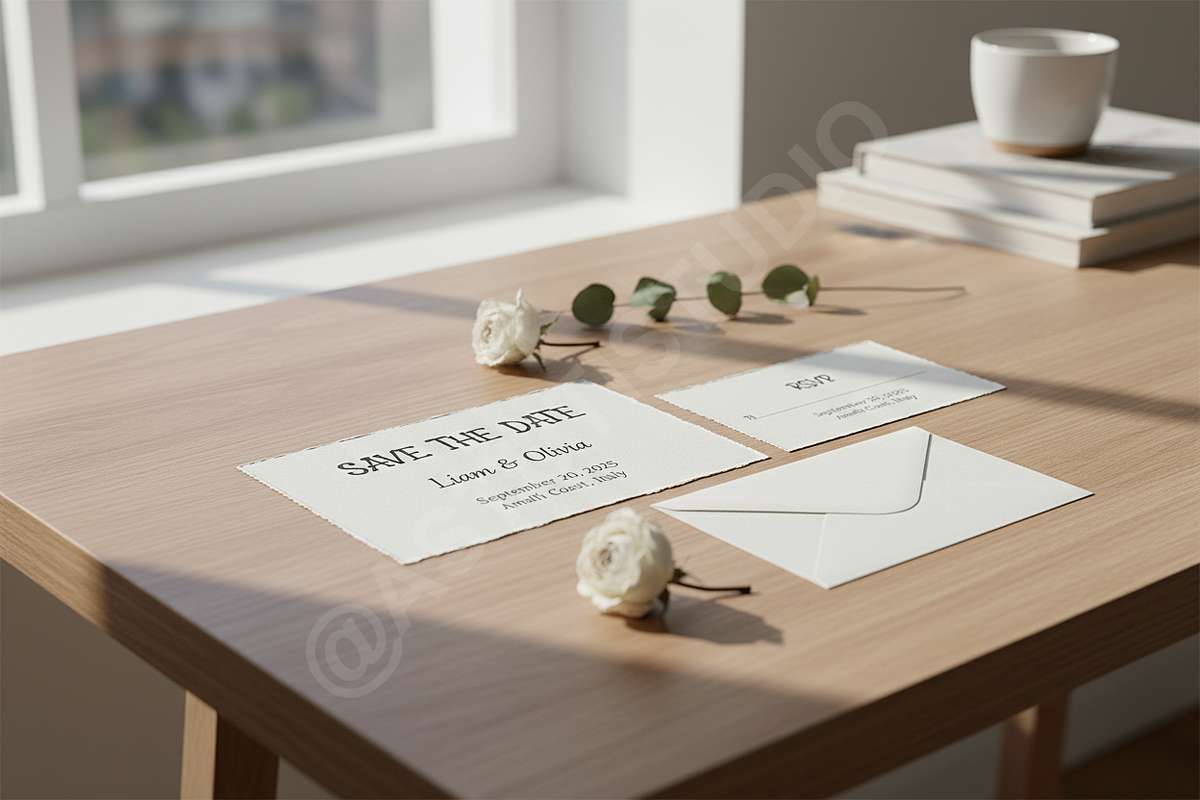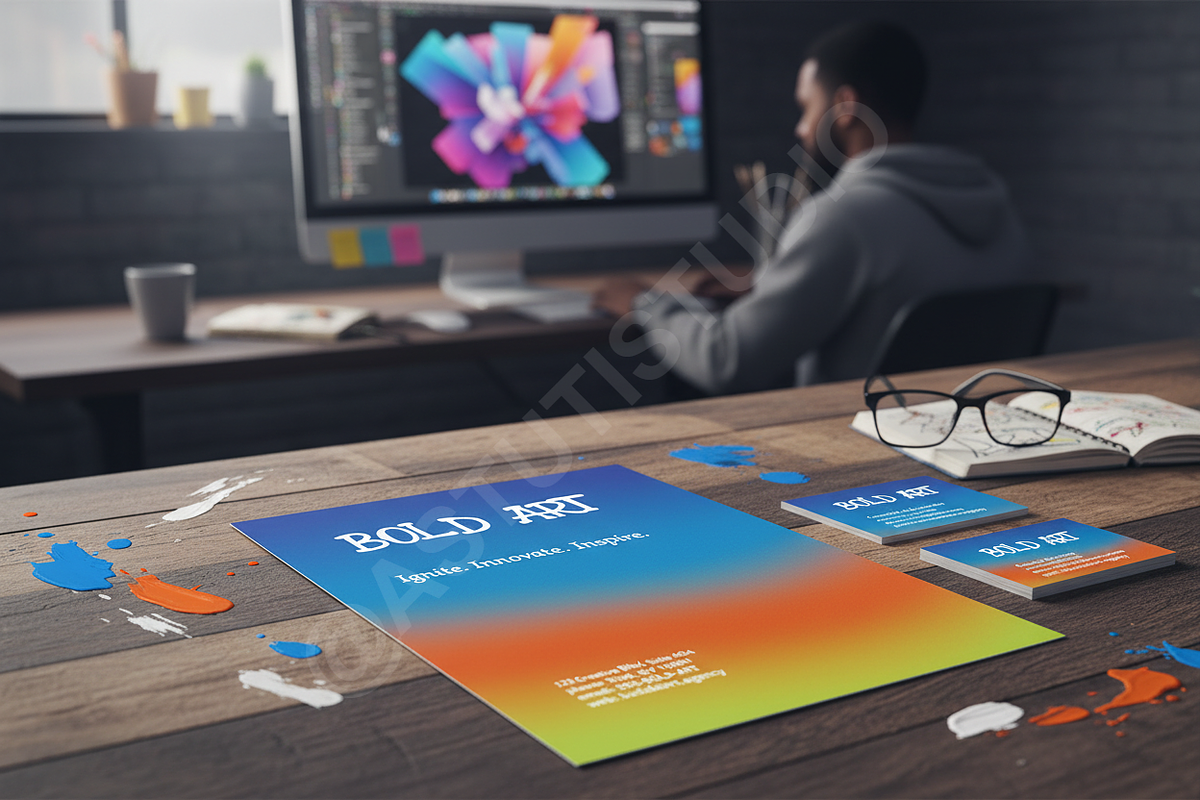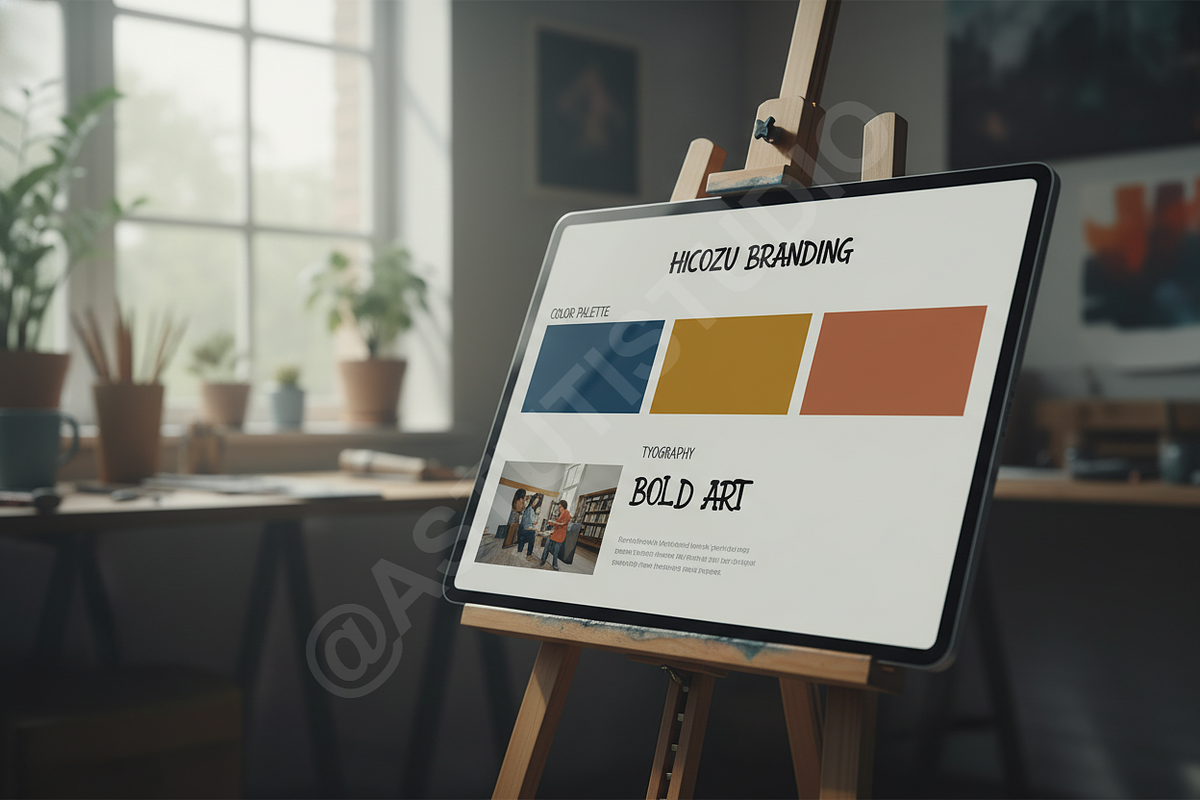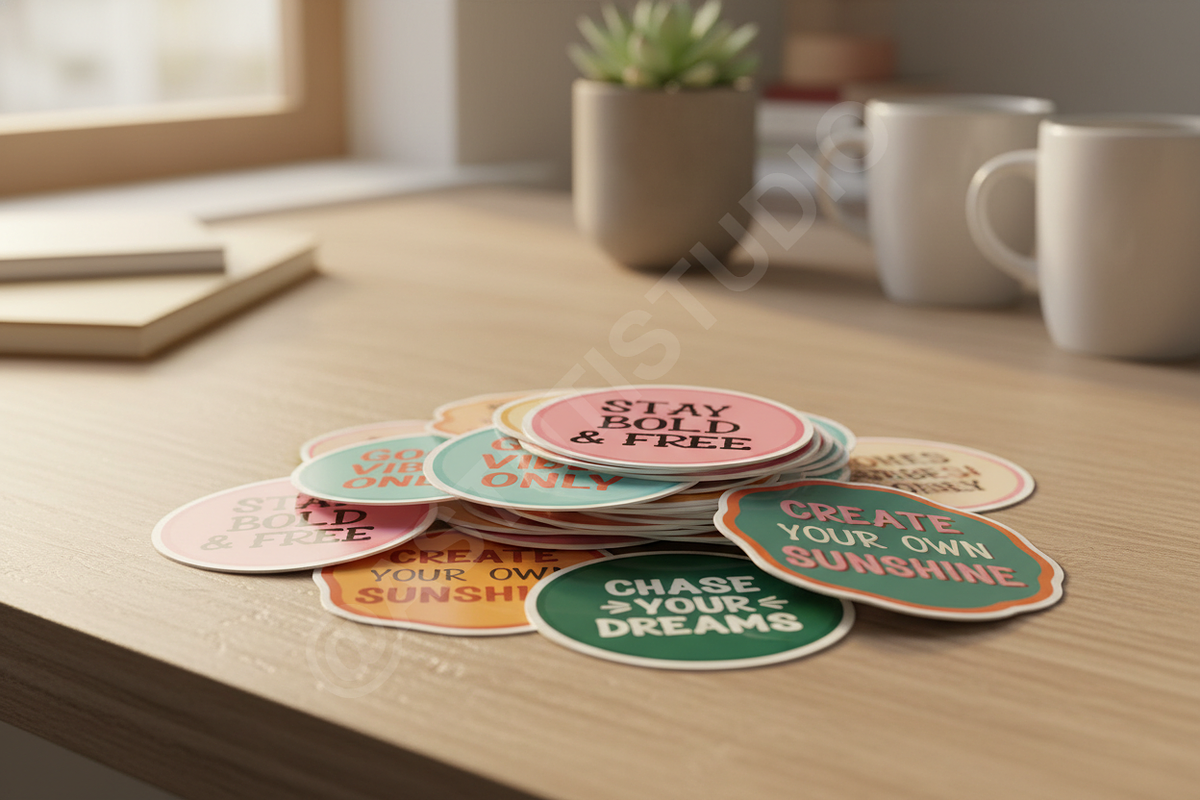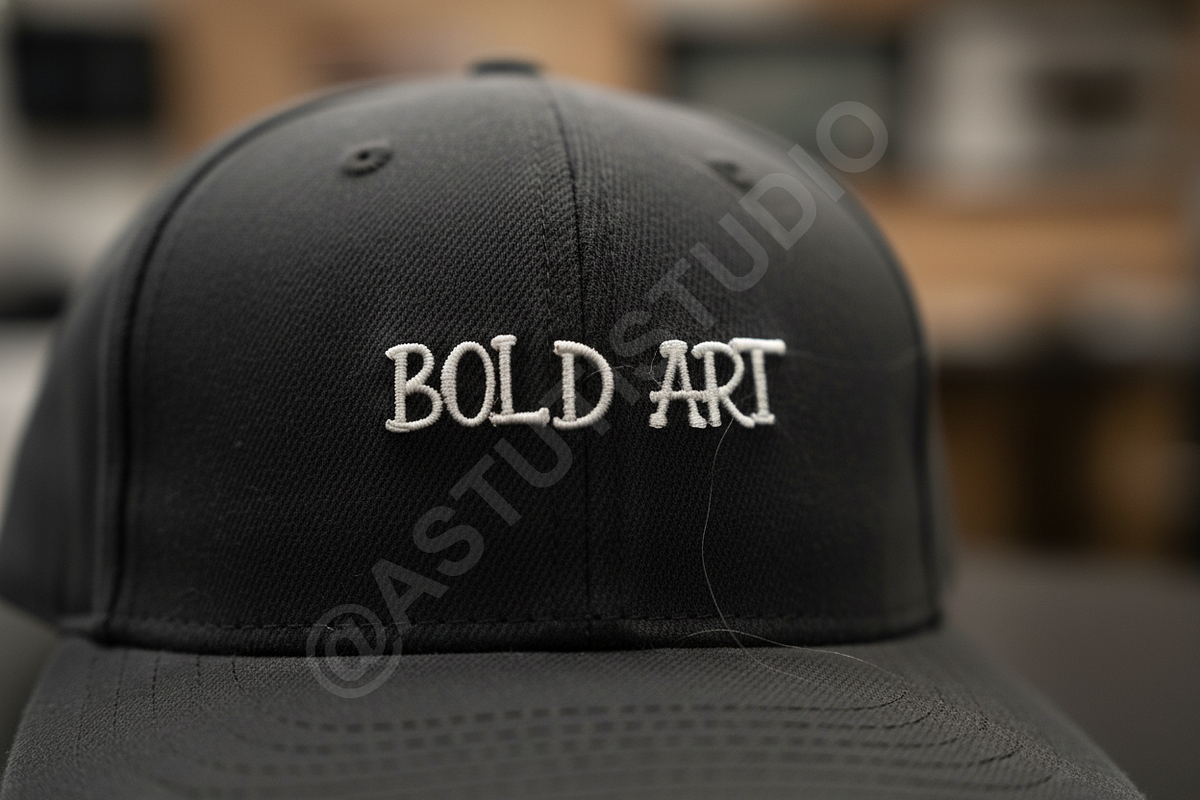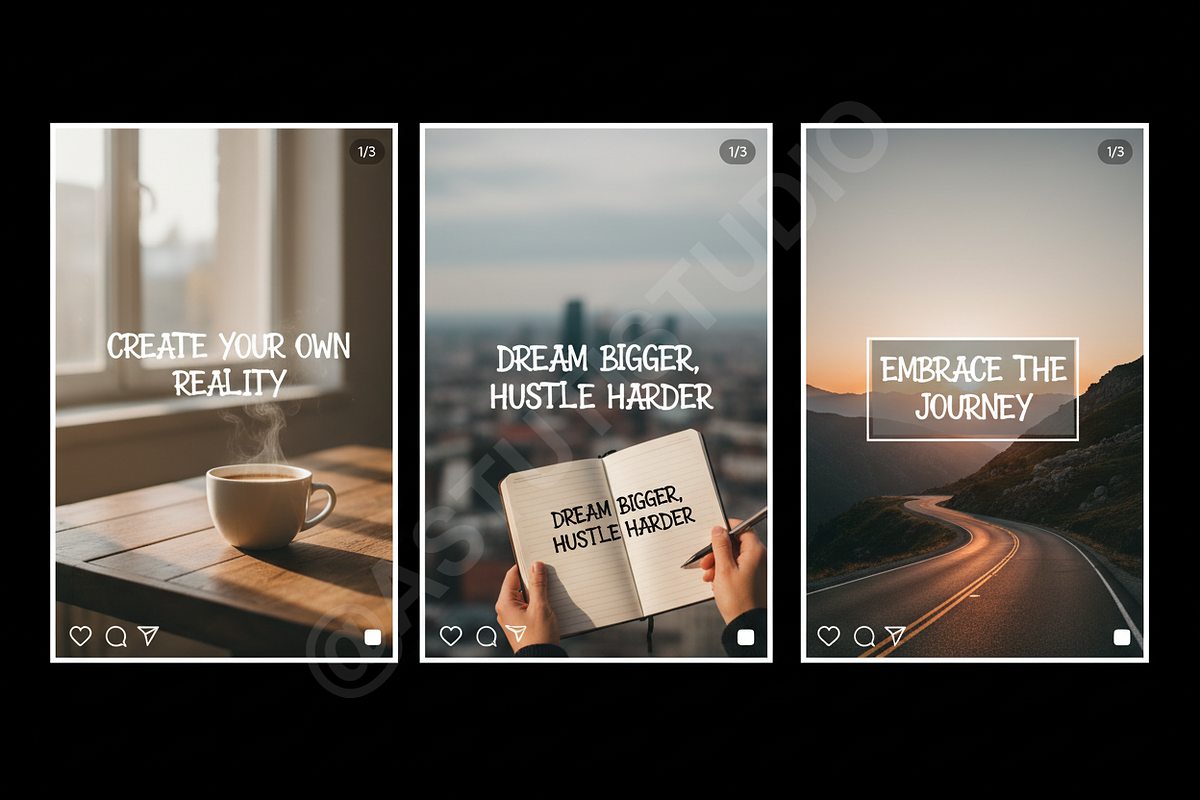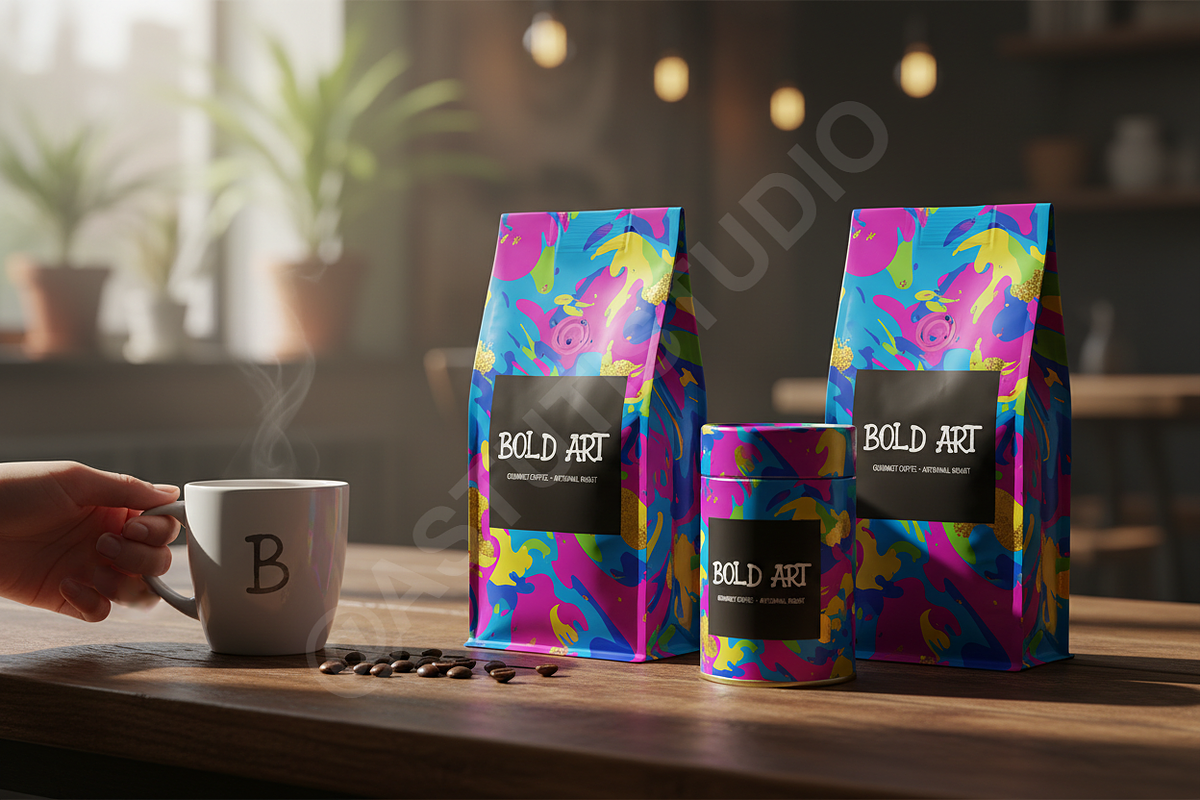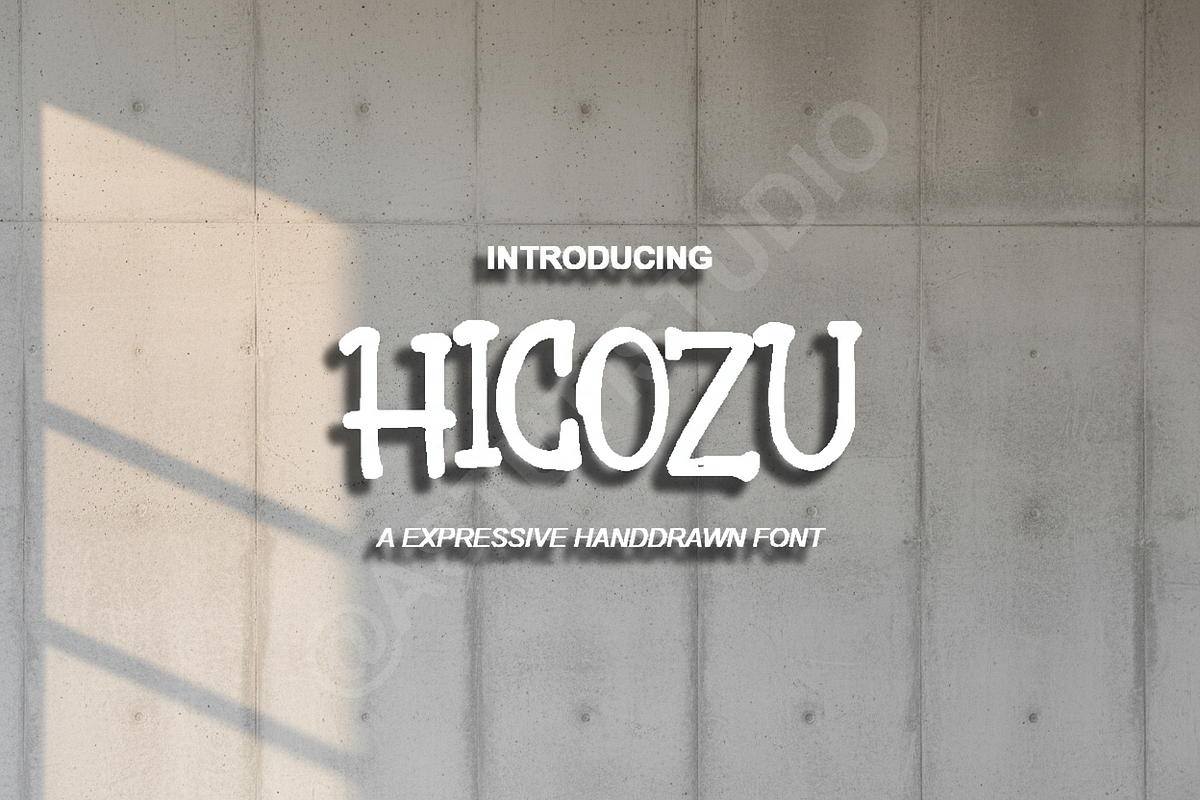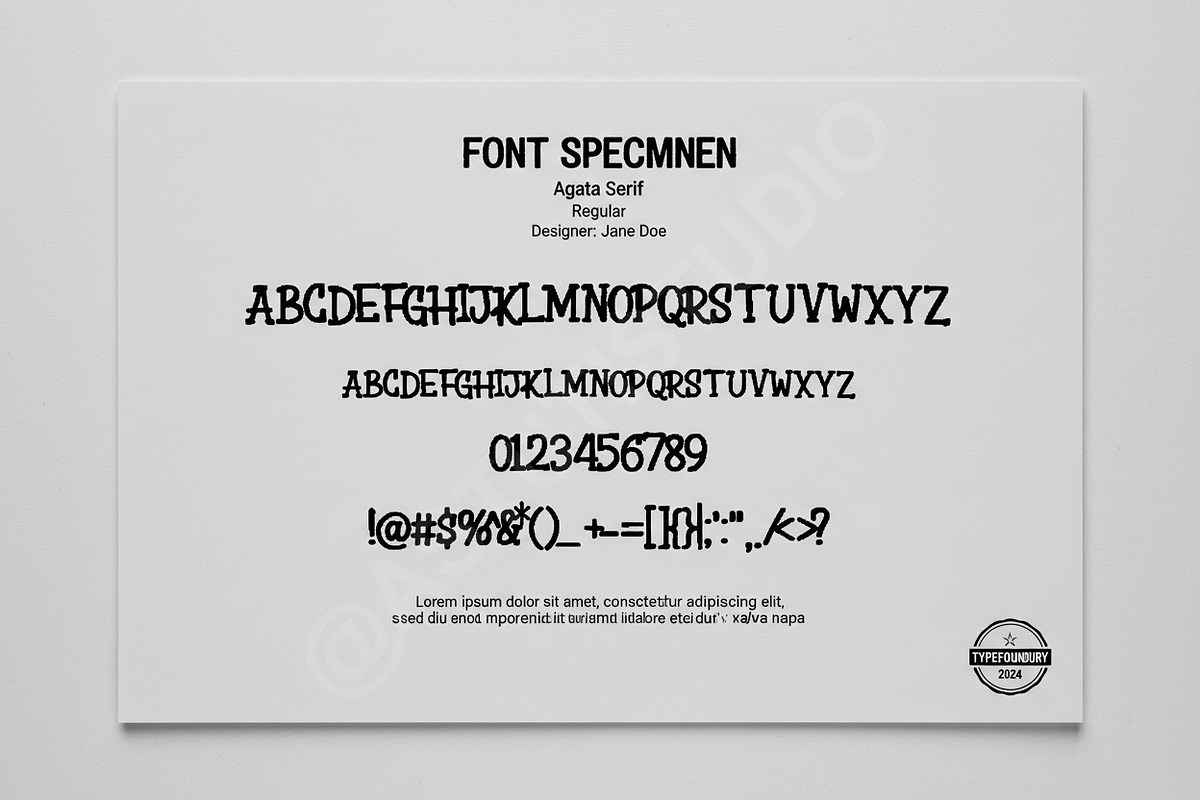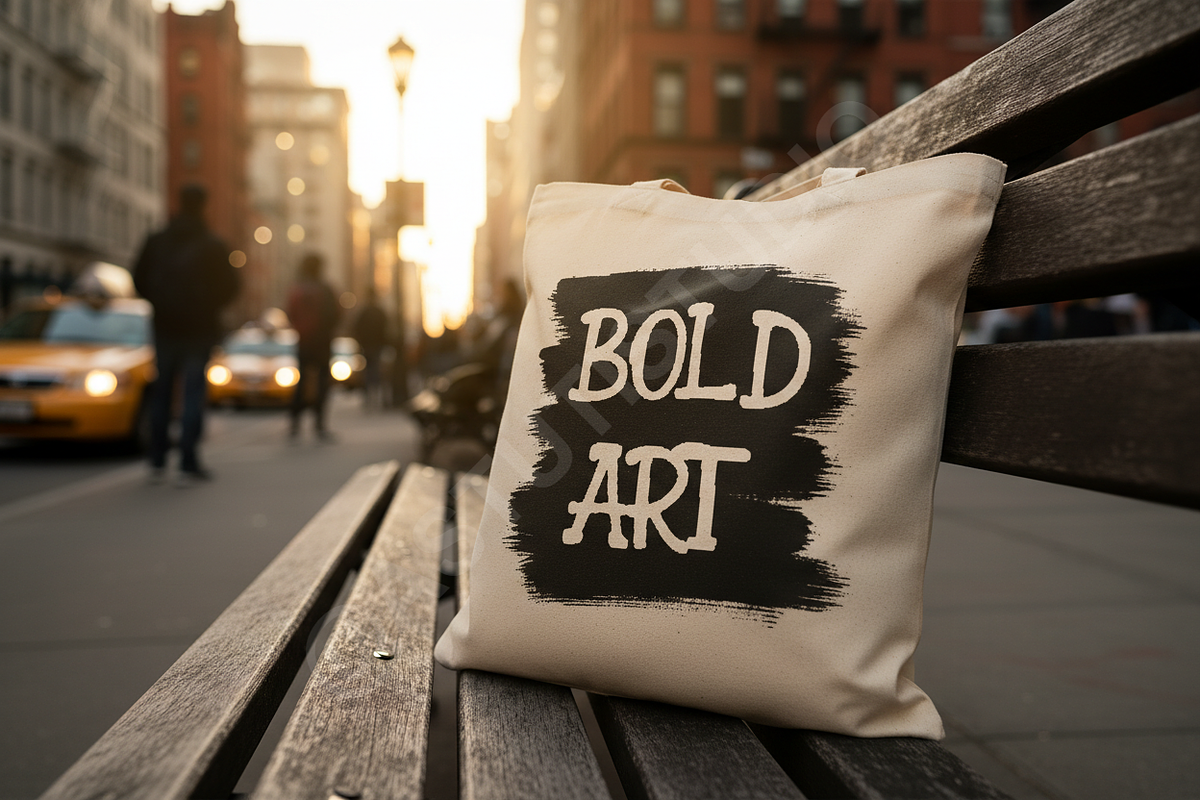
Hicozu | Sophisticated Modern Serif
Hicozu is a premium serif typeface designed for high-end aesthetics and timeless elegance. Its refined curves and balanced proportions make it an essential choice for designers seeking a luxurious touch for branding, editorial layouts, and high-impact social media content.
- Sleek, modern serif design with a timeless feel
- Specialized ligatures and alternates for unique typography
- Optimized kerning for professional, high-end results
- Versatile performance across both print and digital media